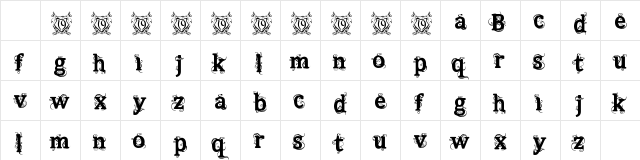
Complete Beauregard Regular glyph index. Displaying only characters natively supported by Beauregard Regular font.
Beauregard is a composed and adaptable typeface that performs quietly and consistently across a wide range of design contexts.